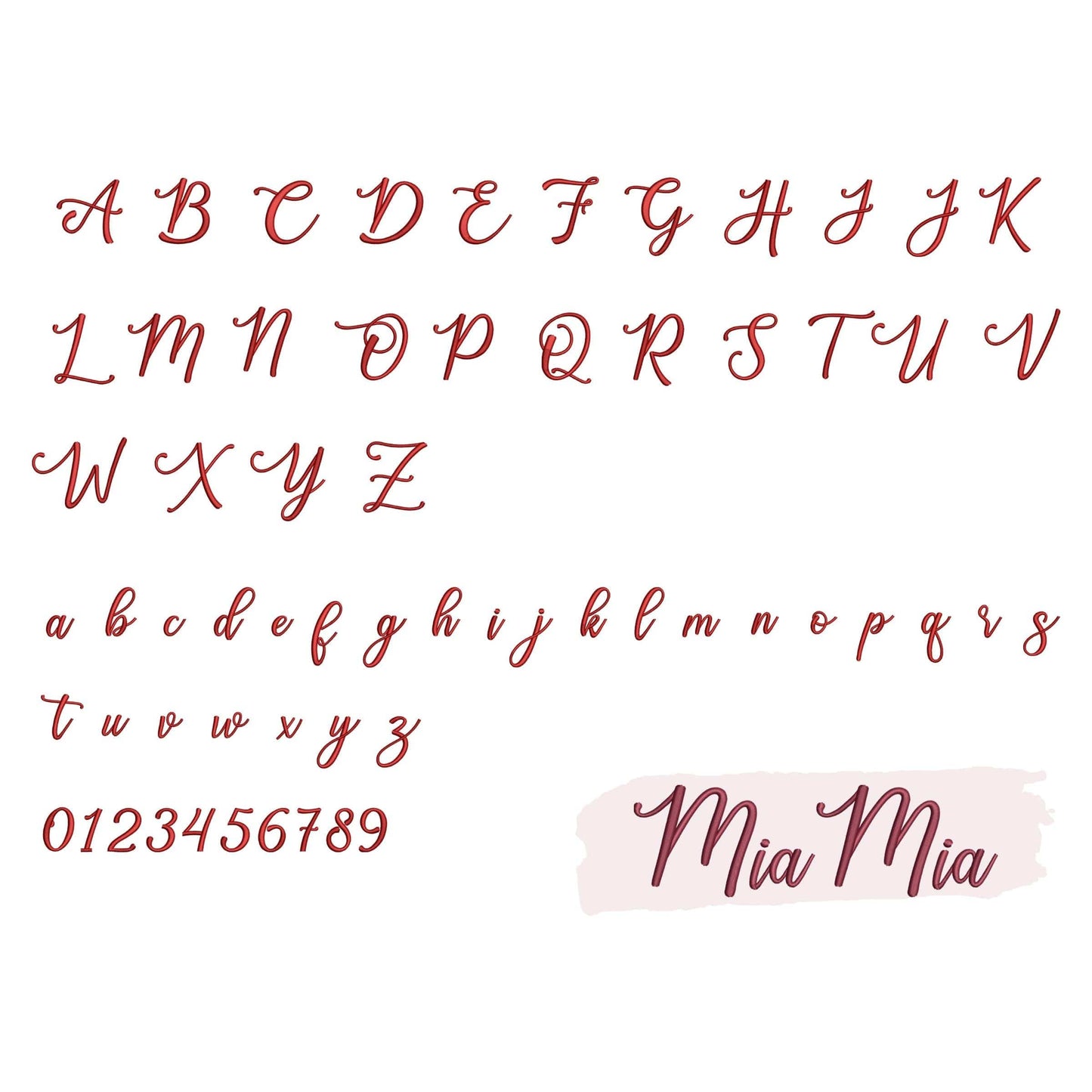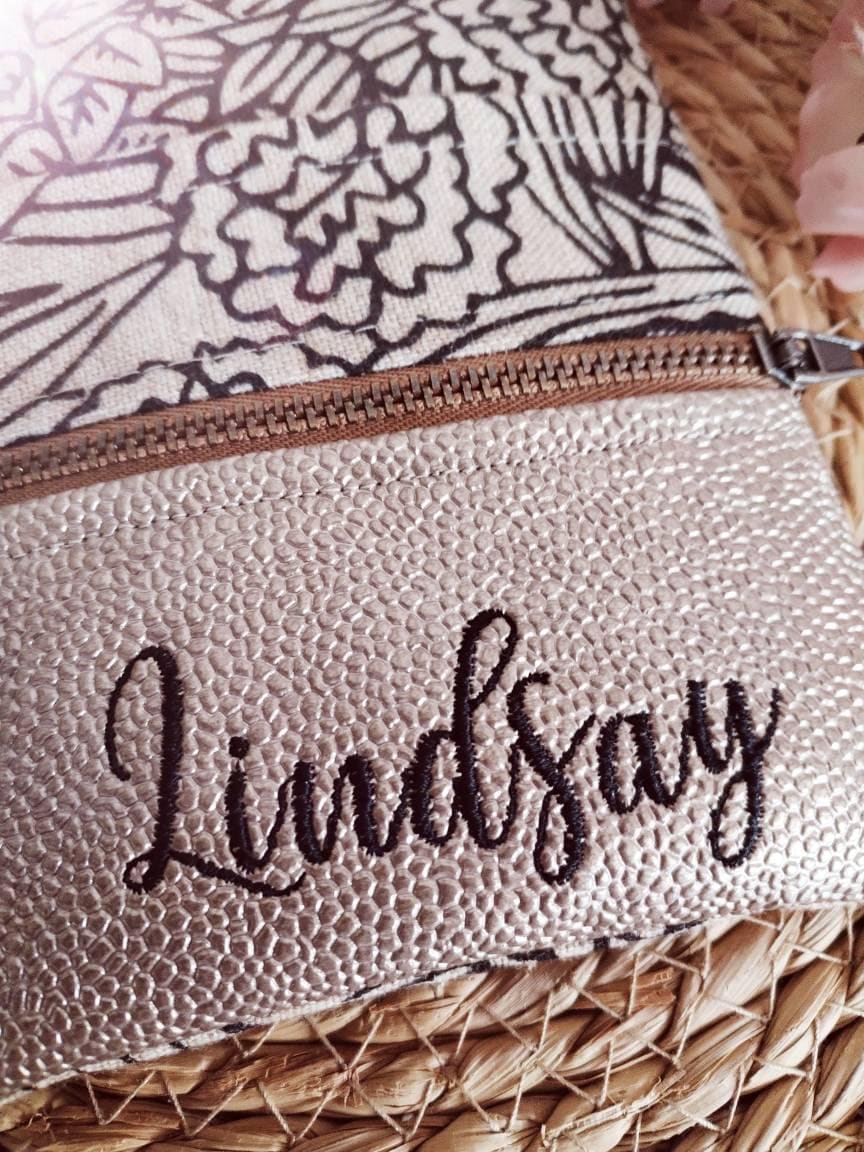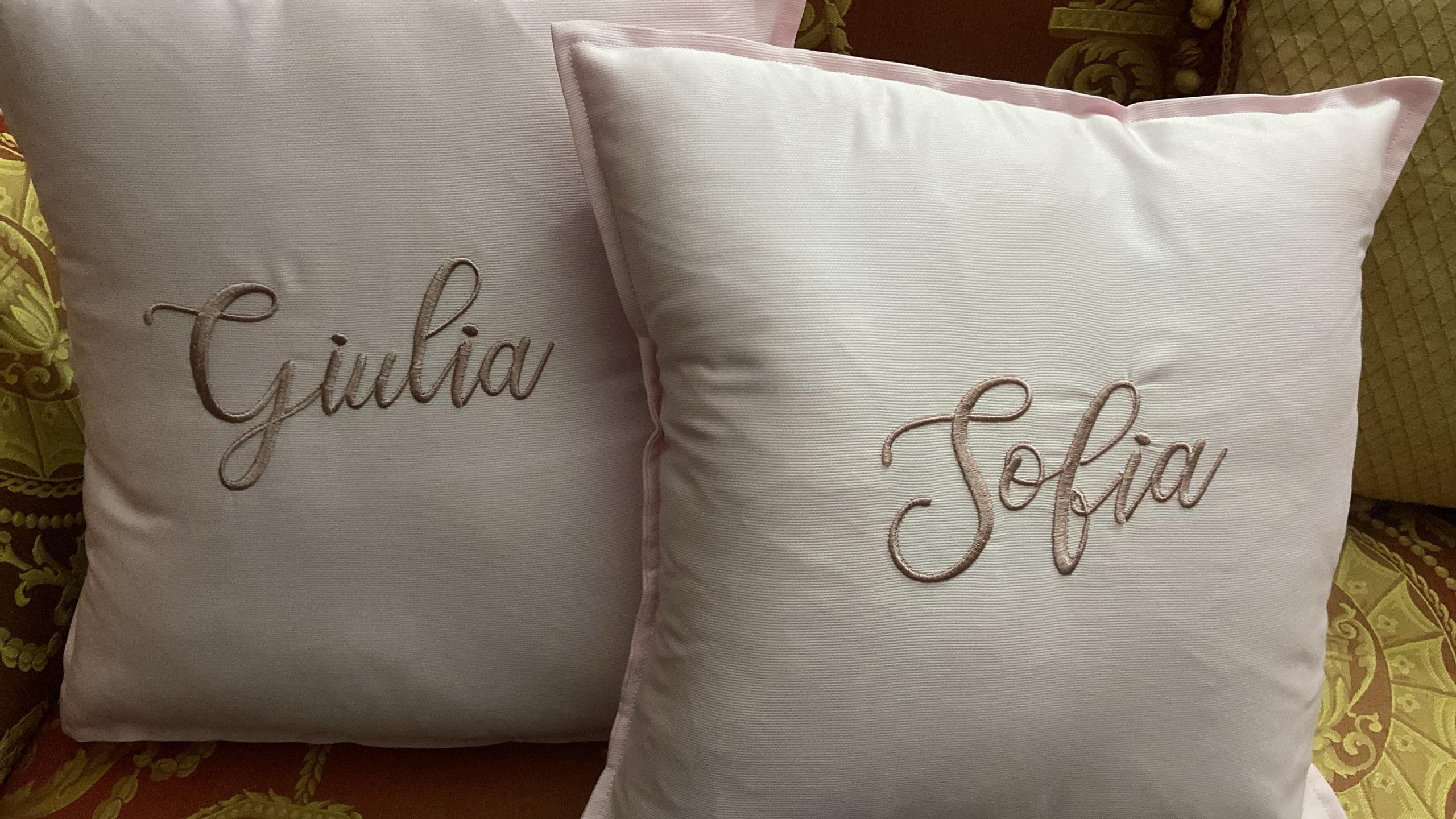
10 Script embroidery fonts bundle
• Included: Uppercase letters, Lowercase letters, Numbers
This machine embroidery fonts bundle includes 10 script font styles for names, monograms, personalized gifts, shirts, towels, and elegant custom embroidery.
A strong digital download for makers who want cursive machine embroidery fonts for feminine lettering, boutique gifts, and polished name projects.